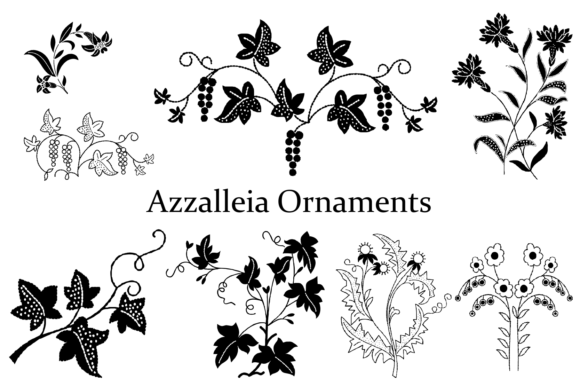
Unleash your creativity with Azalleia Ornaments, the exquisite flourished ornaments typeface that will transform your designs into captivating works of art. This unique font family, meticulously crafted by Intellecta Design, is a visual symphony of intricate patterns and elegant motifs, inspired by the charm of old cross-stitch and craft books. Each character is a labor of love, hand-drawn with the utmost care to bring you an unparalleled collection of dingbats.
With Azalleia Ornaments, you'll discover a world of possibilities to enhance your projects. Whether you're a graphic designer seeking to add a touch of vintage elegance to your work or a passionate crafter looking to elevate your handmade creations, this font family will ignite your imagination. Adorn your invitations, greeting cards, and social media posts with delicate flourishes, borders, and whimsical elements, capturing the essence of timeless artistry.
Imagine the impact it will make on your digital designs, transforming your online presence into a captivating visual experience. From captivating logos and eye-catching social media graphics to personalized branding materials, Azalleia Ornaments will leave an unforgettable impression, setting your work apart in a sea of ordinary.
For the crafty souls among us, Azalleia Ornaments presents an exciting opportunity to infuse your handmade projects with a touch of sophistication. Imagine adorning your scrapbook pages with intricate embellishments, adding a personal touch to your knitted scarves with charming motifs, or creating unique and stylish gift tags that reflect your artistic flair.
Unlock your creative potential and embark on a journey of visual storytelling with Azalleia Ornaments. This extraordinary font family will captivate your audience, evoke emotions, and leave a lasting impression wherever it's used. Let your imagination run wild and experience the joy of creating truly remarkable designs that stand the test of time.